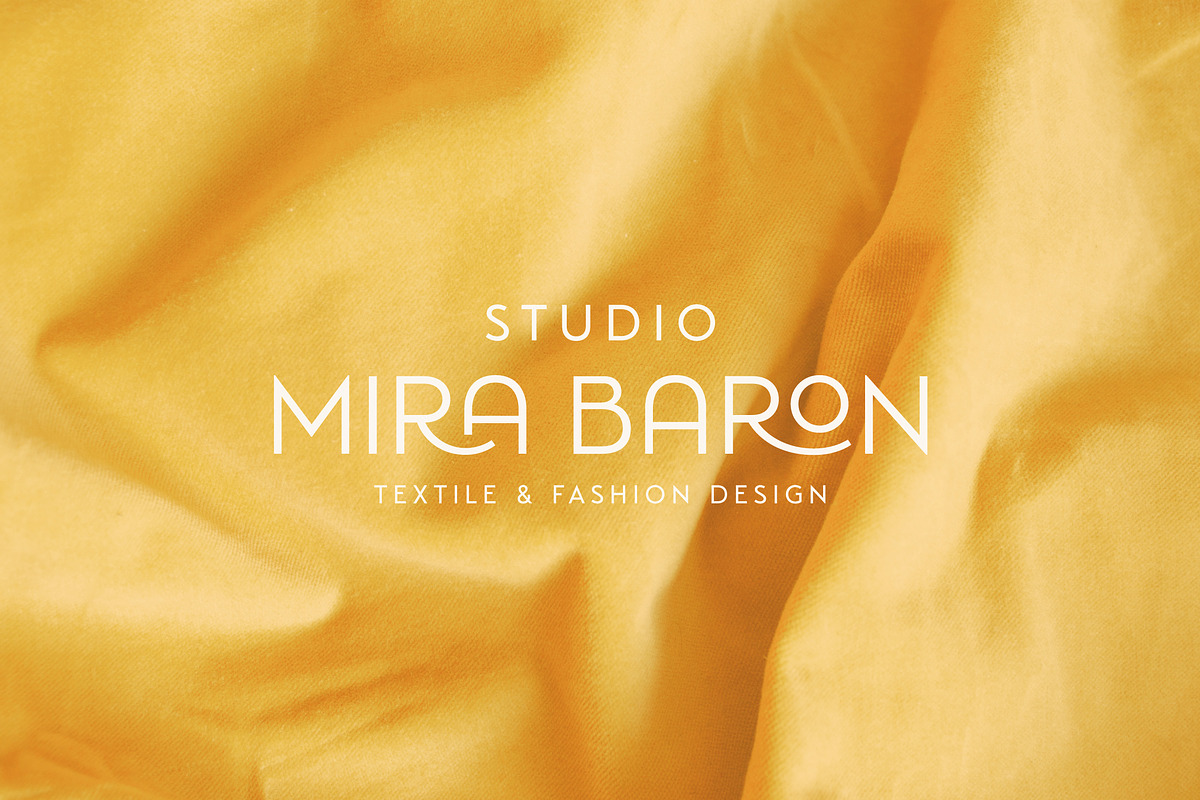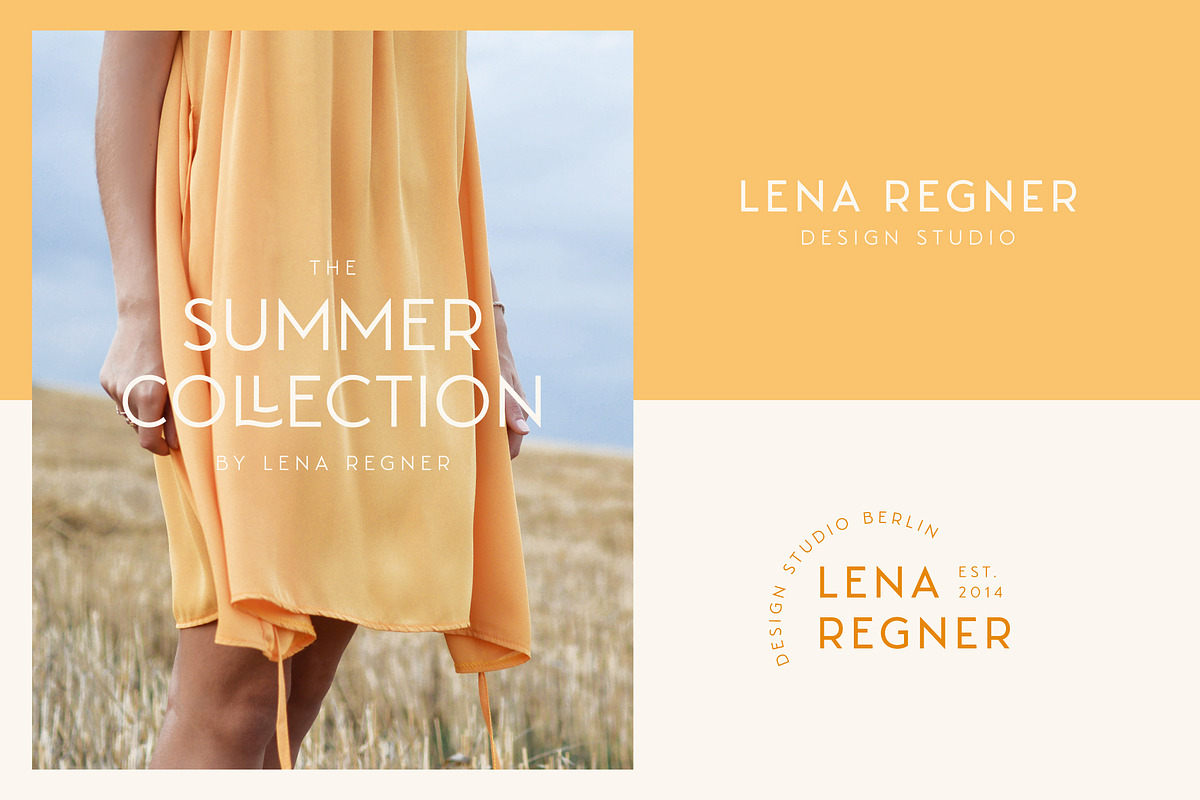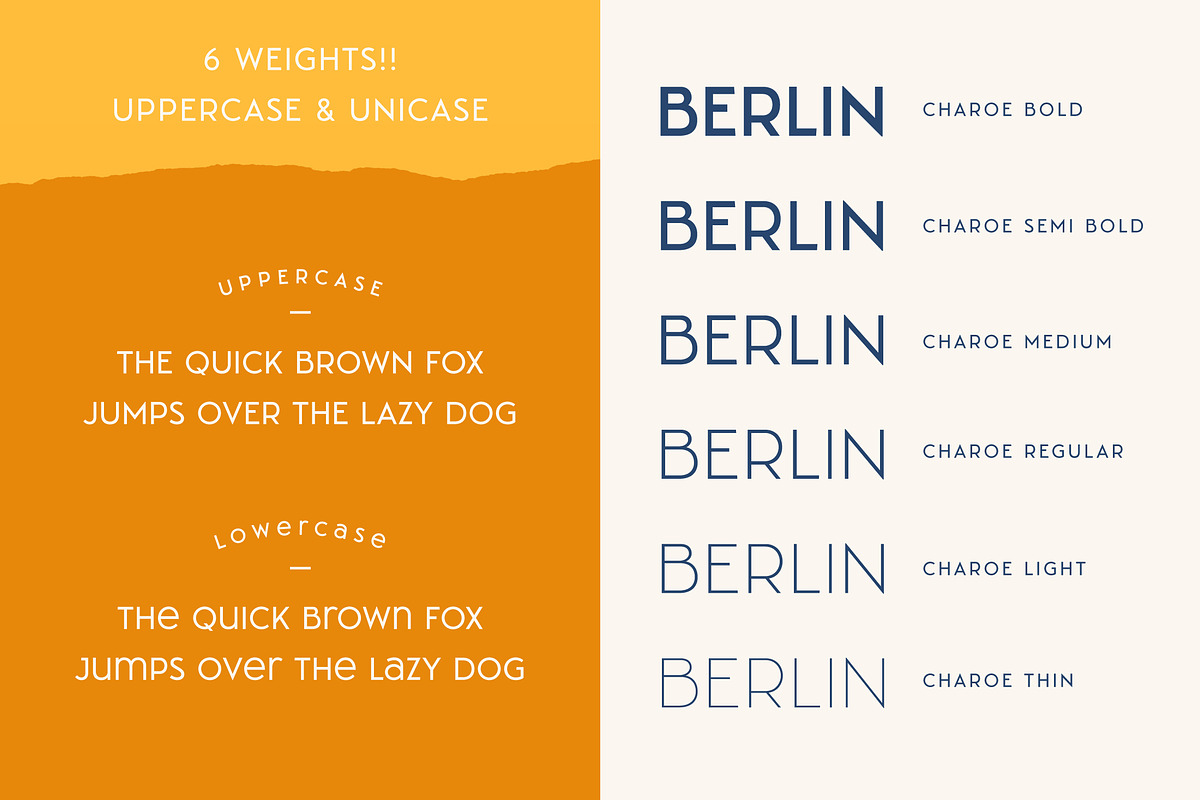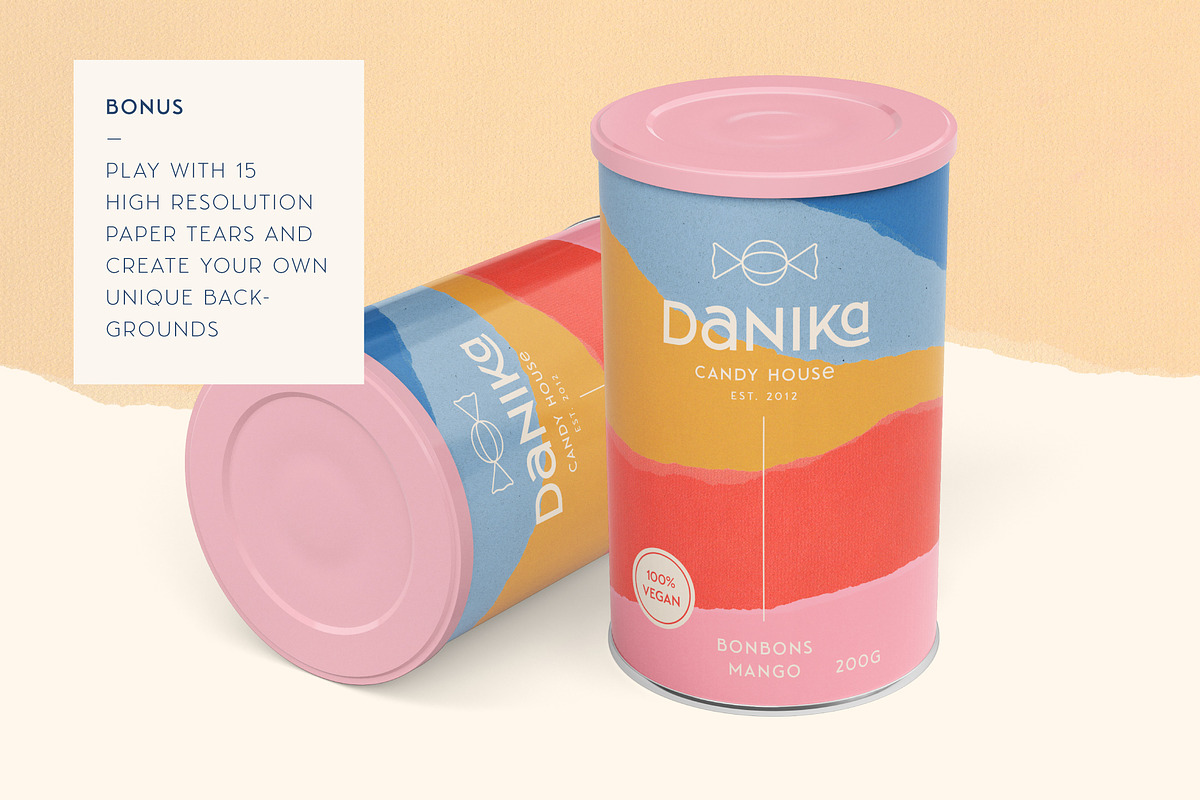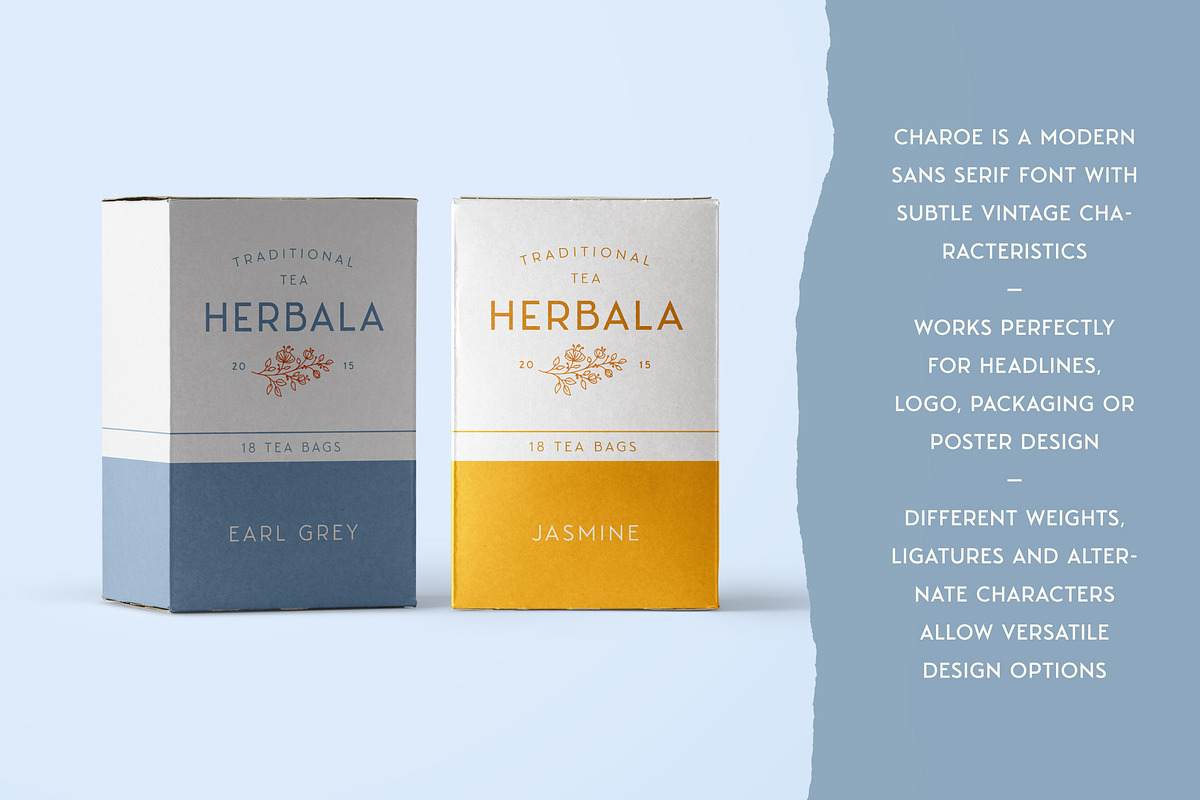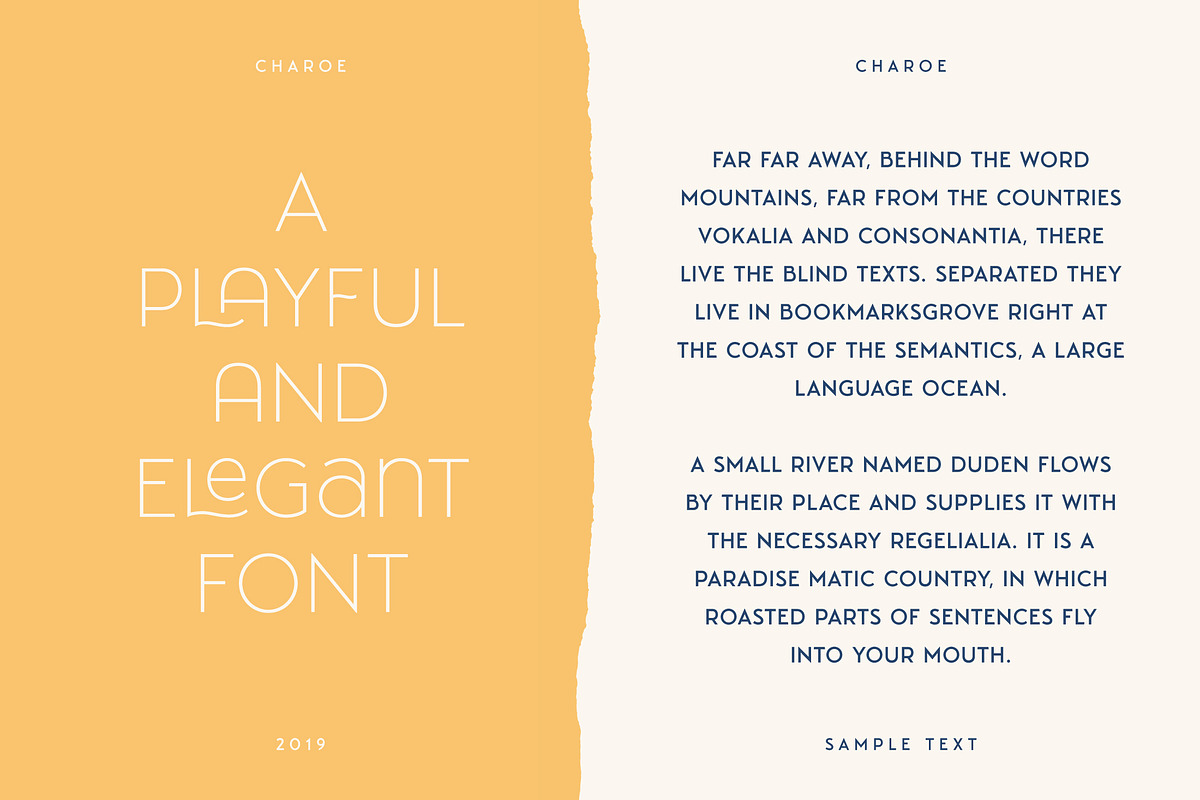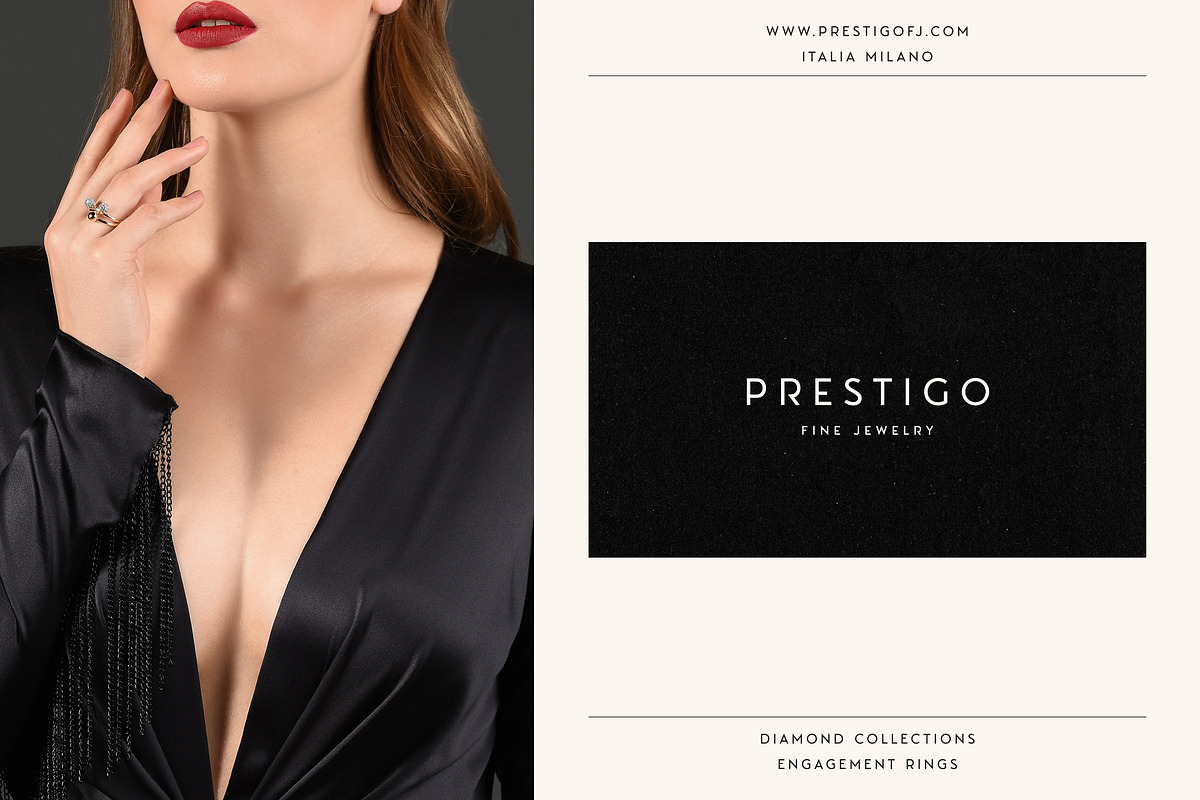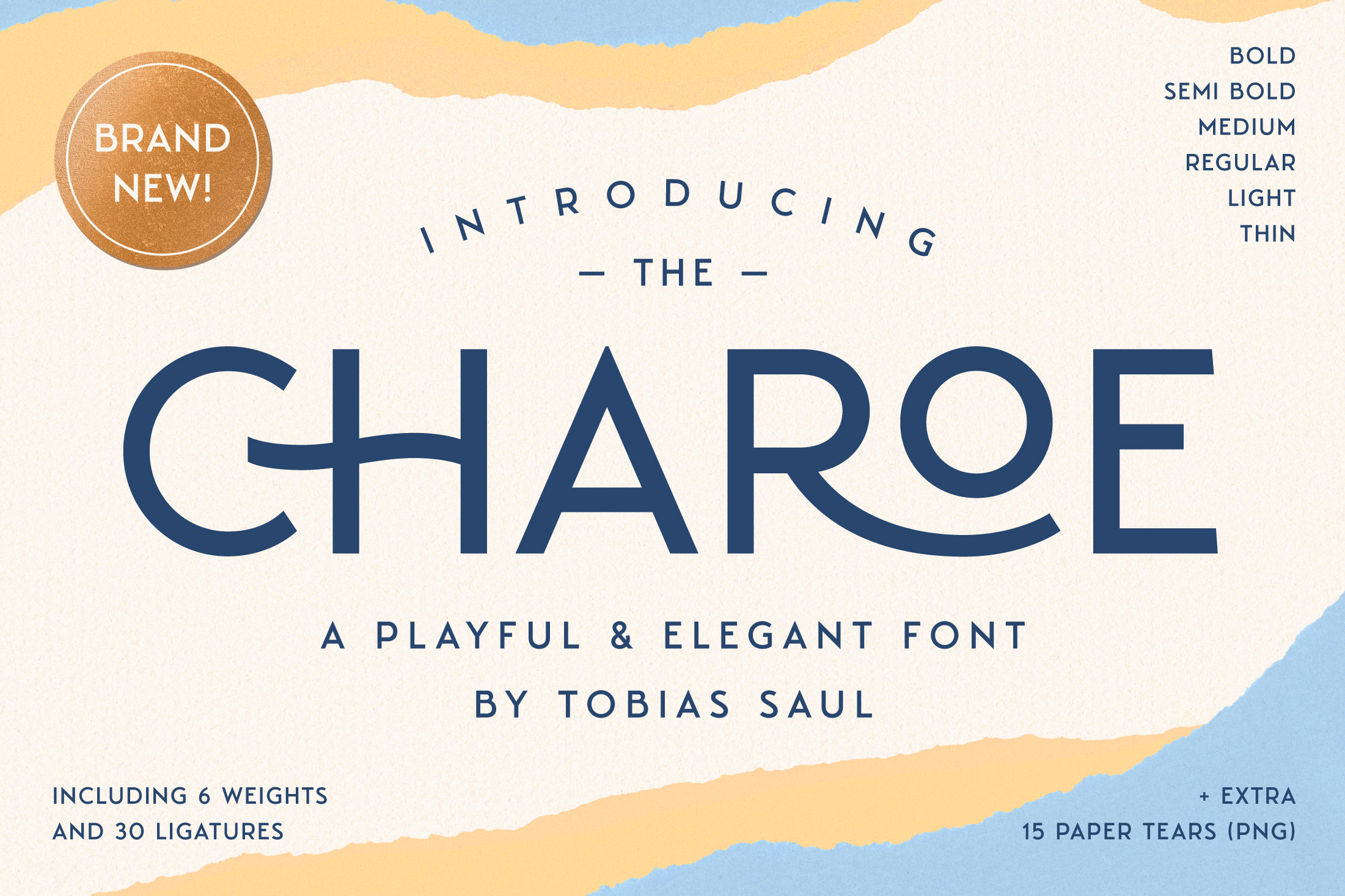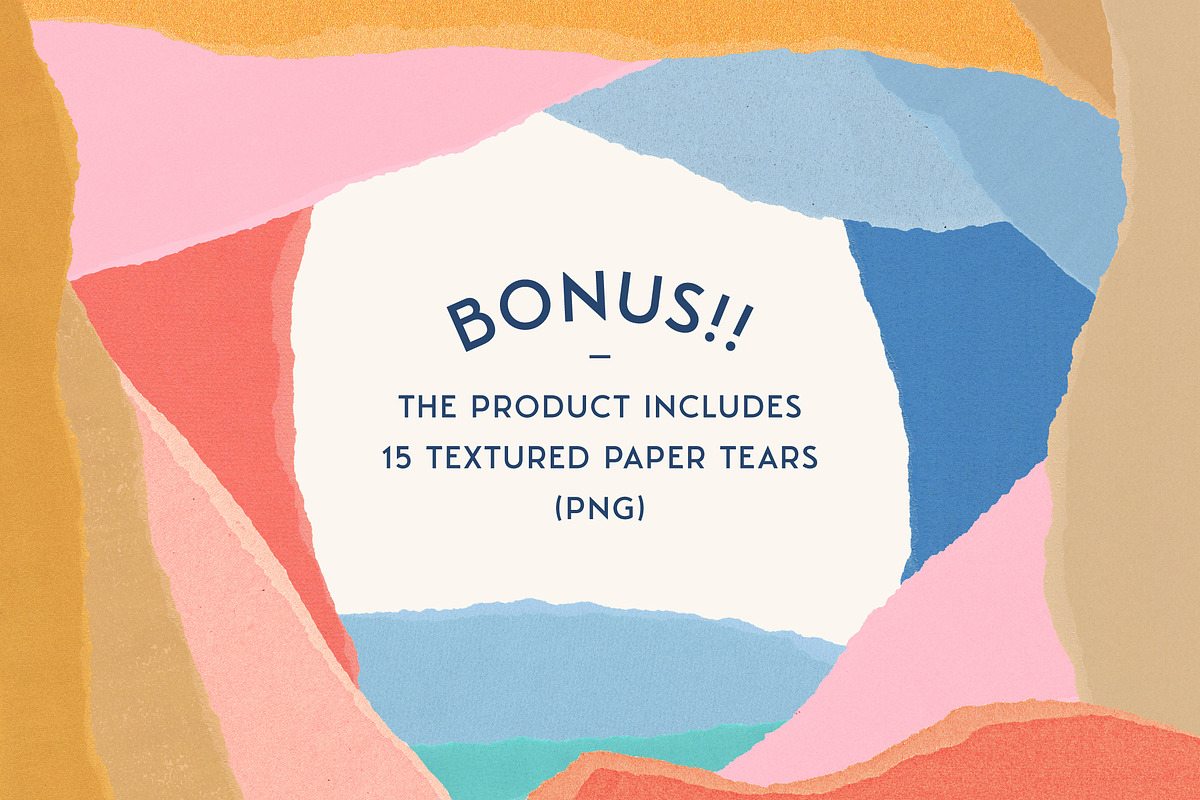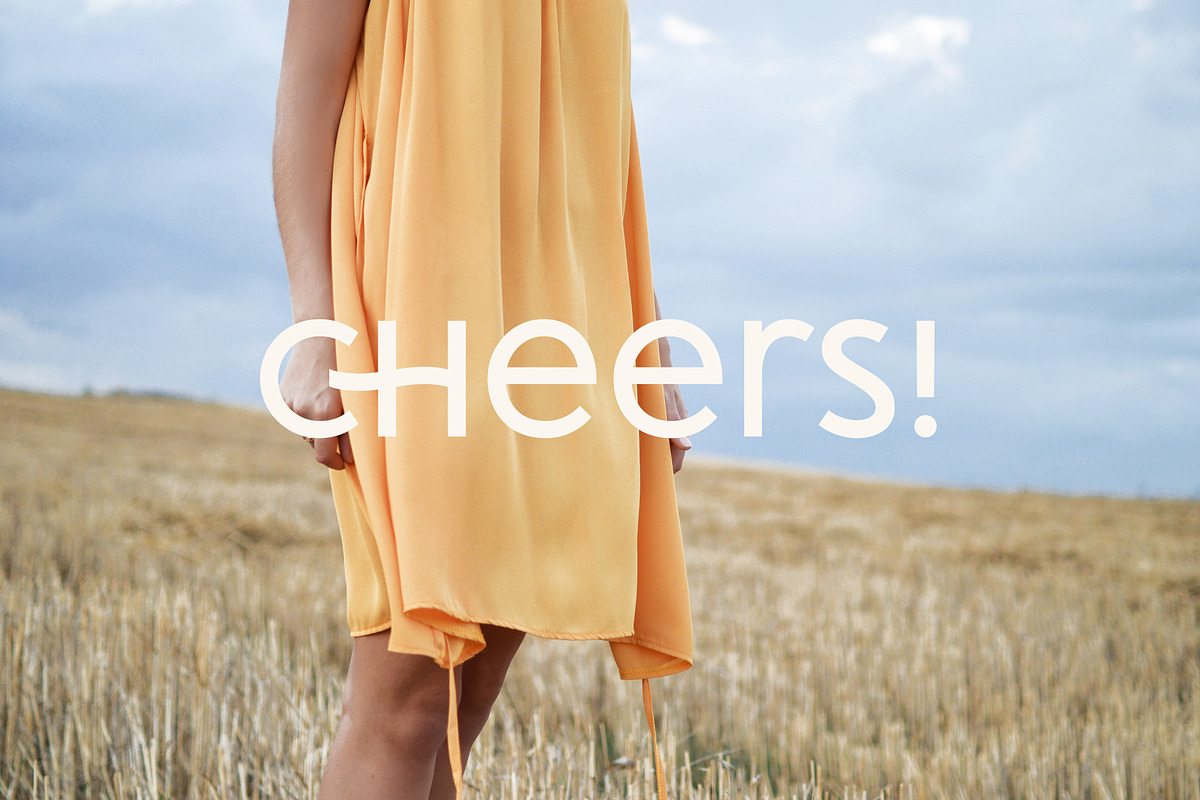
Charoe Typeface + Extras
Our Charoe Typeface is a playful and elegant sans serif, perfect for branding projects, headlines, posters and packaging! Primarily it is characterized by a modern look with straight shapes, but on closer view, you will notice its subtle connection to vintage type design from the early 20th century.
A wide range of ligatures, alternate characters, as well as six different weights allow unique and versatile design options! Furthermore it is a unicase typeface, so you can also play with uppercase and lowercase initials. But that’s not all! As a little bonus I included 15 textured paper tears (PNG), which I used for this presentation.
- 6 Weights (Bold – Thin)
- Character set A-Z with some special lowercase options
- Special Ligatures